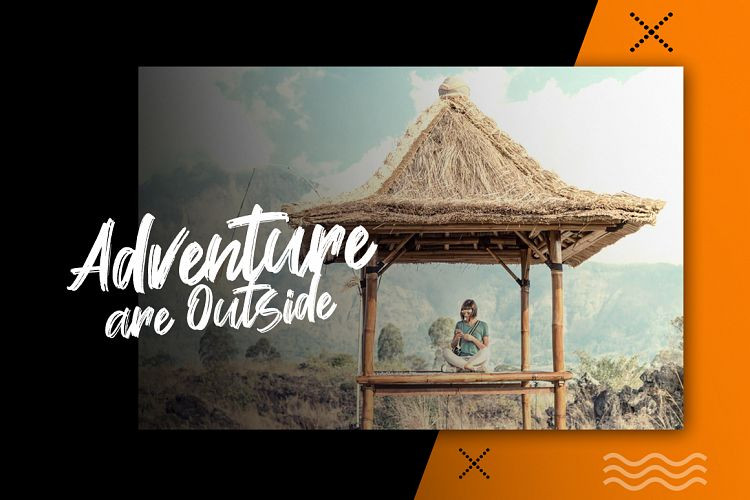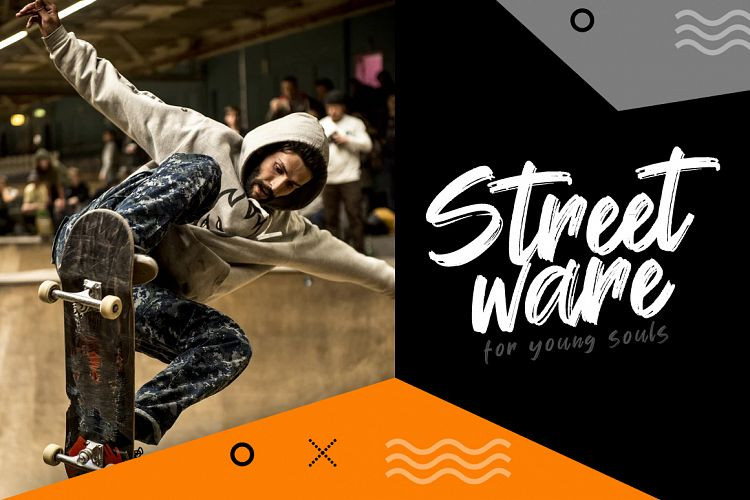
Wellfont Brush Font
We always want to introduce you to the best fons, and today too, it is a brush font. Brush or grunge style script display font for your new projects. Great for grunge or artistic projects! Introducing Wellfont Brush Font. It’s designed and shared by khurasan. This is a fresh handwritten typeface brush, elegant and vintage feel character set. The Wellfont font includes a full set capital and lowercase letters, as well as multi-lingual support, currency figures, numerals, & punctuation.